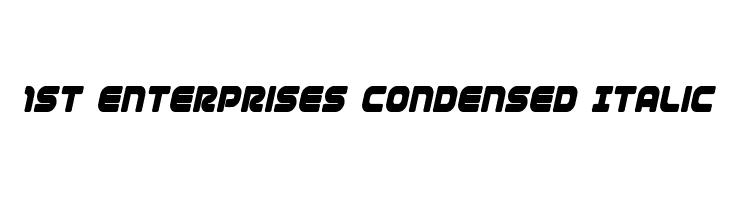
1st Enterprises Condensed Italic Font
1st Enterprises Condensed Italic Description
This font features a bold, italicized style with a condensed width, giving it a strong and dynamic appearance. The characters are rounded and smooth, with a modern flair that suggests movement and energy. The uppercase and lowercase letters maintain a consistent design, ensuring readability while adding a unique touch. The numbers and special characters are equally bold and cohesive, making this font suitable for attention-grabbing applications. Its condensed nature allows for efficient use of space, making it ideal for headlines or titles where impact is essential.
A bold, italicized, and condensed font with a modern and dynamic style from Sci-fi fonts.
- Proposed Projects: Ideal for sports branding, dynamic advertisements, modern posters, and tech-related projects.